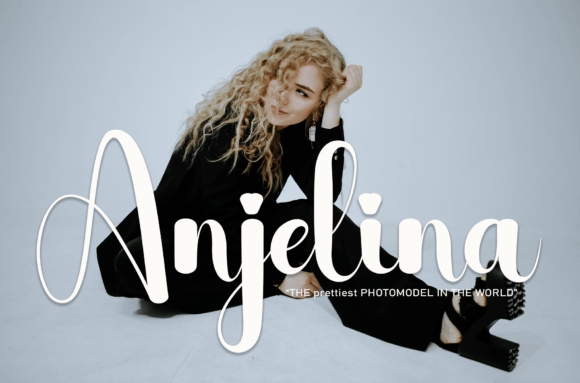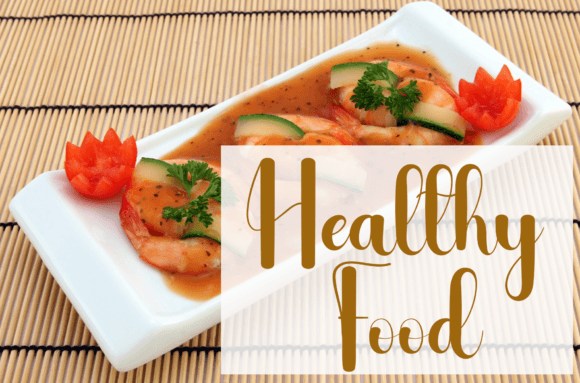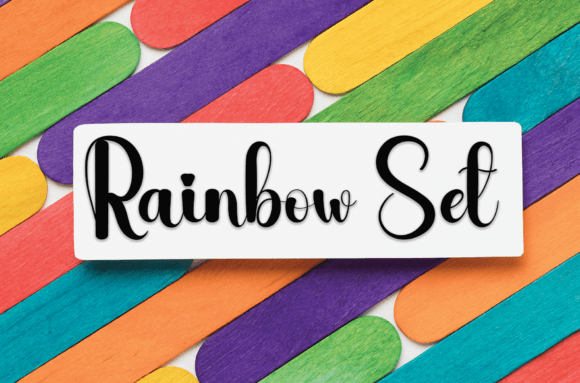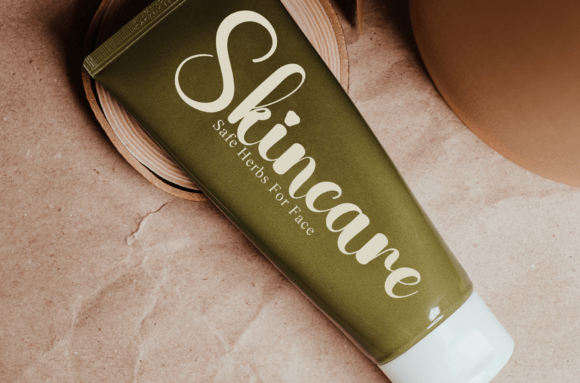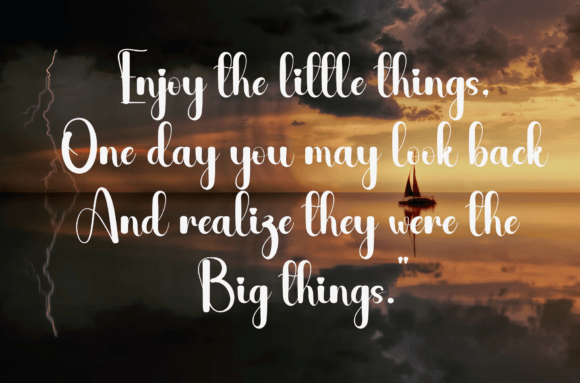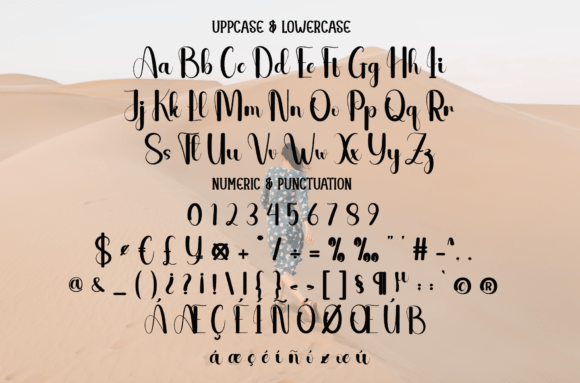
Introduction to Jackstone Font
Jackstone is a sweet and friendly handwritten font.
Fresh and neat, this font is ideal for writing wedding invitations, cards, or any other design that might need a fun touch .
Key Features of Jackstone Font
Why Choose Jackstone Font?
Jackstone Font offers exceptional quality and versatility, making it a valuable addition to your design toolkit. Whether you’re creating for personal projects or commercial use, Jackstone Font delivers professional results.